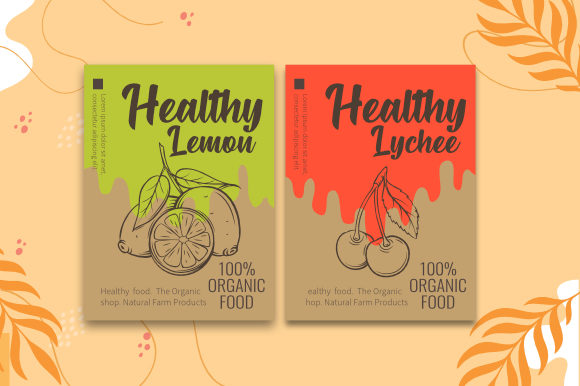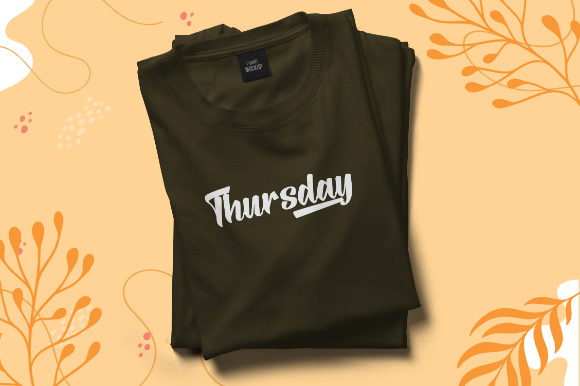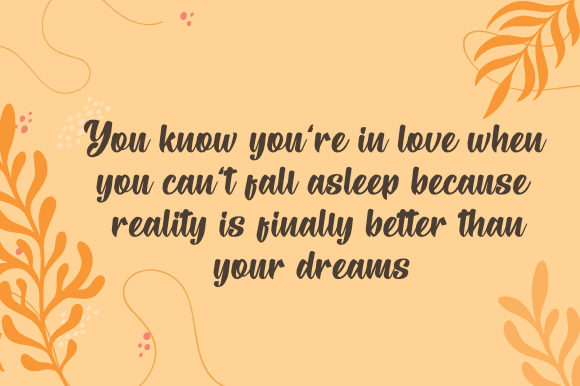
Introduction to Reality Magic Font
The moment you’re about to finalize your design project, but you’re still missing that perfect touch – it’s like being stuck in a creative limbo. You’ve got your color palette, typography, and composition all sorted, but something’s just not quite right. This is where the Reality Magic Font comes in – a game-changing design resource that can elevate your creative project to the next level.
This gorgeous and bold handwritten font is more than just a pretty face – it’s a powerful tool that can add a sense of strength, confidence, and dynamism to your designs. With its high-quality, transparent background, you can easily integrate it into your projects without any hassle. Whether you’re working on a logo, headline, or any other creative endeavor, the Reality Magic Font is an absolute must-have.
Key Features of Reality Magic Font
- High-quality, professional font designed for creative projects and graphic designs.
- Features a transparent background, allowing for seamless integration with any design element.
- Includes a wide range of glyphs and characters, making it suitable for various languages and designs.
- Unique, modern design that adds a touch of magic to any creative project, making it stand out from the crowd.
Honest Review: Reality Magic Font
I recently had the chance to work with the Reality Magic Font, and I have to say, it’s been a game-changer for my creative projects. As a designer, I’m always on the lookout for high-quality design resources that can elevate my work.
Here are some of the things that work well with the Reality Magic Font:
- ✨ Stunning visuals: The font is incredibly detailed and visually appealing, making it perfect for projects that require a touch of magic.
- ✨ Versatility: The font is highly versatile and can be used for a wide range of creative projects, from logos to brochures.
- ⚠️ Limited font sizes: The font is available in a limited range of sizes, which can make it difficult to use for large-scale projects.
- ⚠️ No transparent background option: While the font itself is beautiful, there’s no option to download it with a transparent background, which can be a bit restrictive.
Overall, I’m really impressed with the Reality Magic Font. While it may have some limitations, its stunning visuals and versatility make it a valuable addition to any designer’s toolkit.
Use the Reality Magic Font in conjunction with a high-quality design resource to create a unique and eye-catching visual.
Take advantage of the transparent background feature to create a seamless design experience.
Use the Reality Magic Font in creative projects such as:
Graphic design
Branding and logos
Infographics
Brochures and flyers